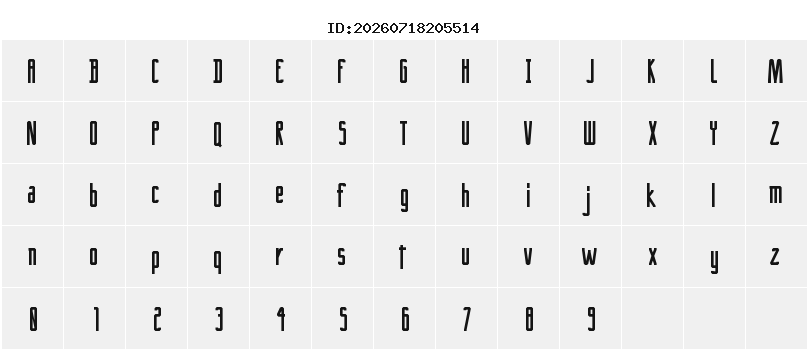
• Font Name: Crack
• Designer: Eric DJENGUE
• Description: Crack is designed as a font character title.
About Crack.ttf
Crack.ttf is a modern, elegant sans-serif font designed for ultimate readability and visual harmony. Perfect for branding, headlines, web design, and print materials.